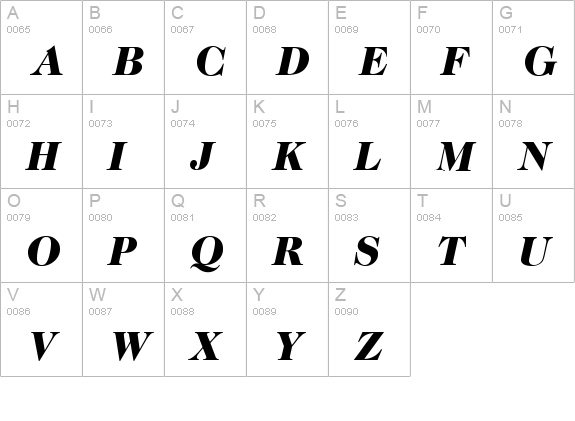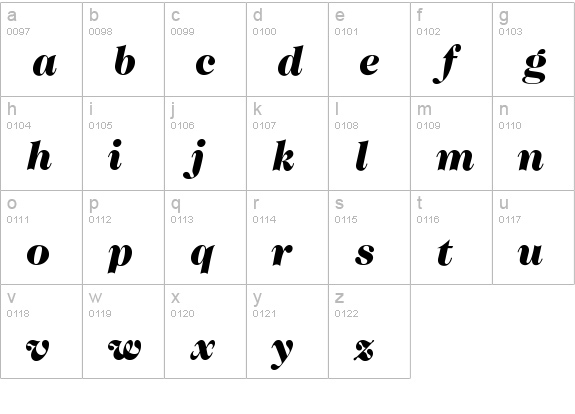
Caslon 224* Black Italic Font Details
Caslon 224* Black Italic is a maximum-weight, dramatic, italic variant in the Caslon typeface family \xE2\x80\x94 well suited to maximum-impact headlines, posters, and packaging.
Caslon 224* Black Italic is a stunning and versatile font that exudes elegance and sophistication. Its bold and slanted design commands attention and adds a touch of drama to any project. The sleek and modern appearance of this font makes it perfect for luxury branding, editorial design, and high-end marketing materials. With its sharp serifs and fluid curves, Caslon 224* Black Italic offers a unique and eye-catching look that is sure to make a statement. Whether used for headlines, logos, or signage, this font conveys a sense of style and refinement. Best of all, Caslon 224* Black Italic is available for free download at FontsMarket.com, making it easily accessible for designers and creatives looking to elevate their projects with a touch of sophistication. Don't miss out on this opportunity to enhance your designs with the timeless beauty of Caslon 224* Black Italic.